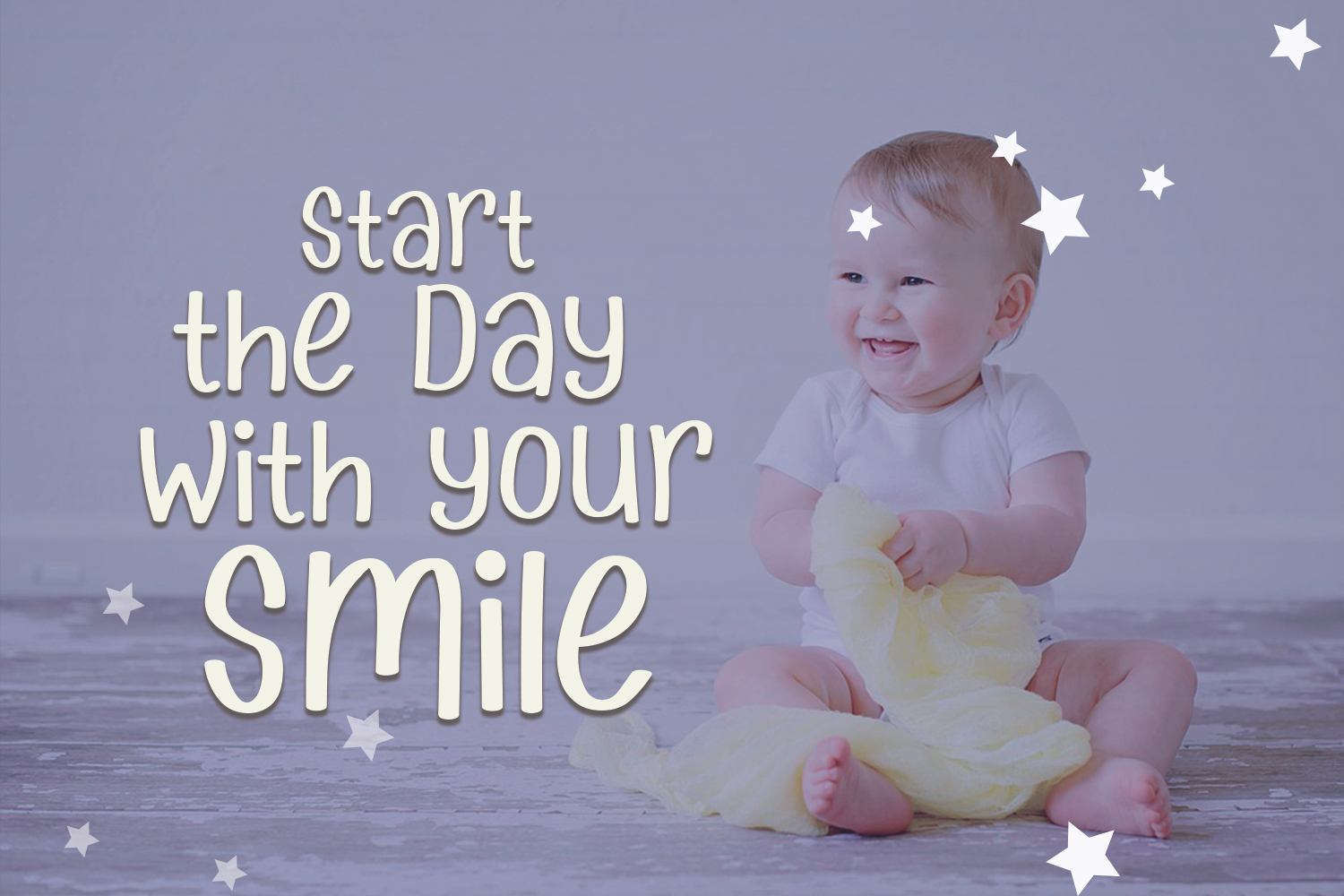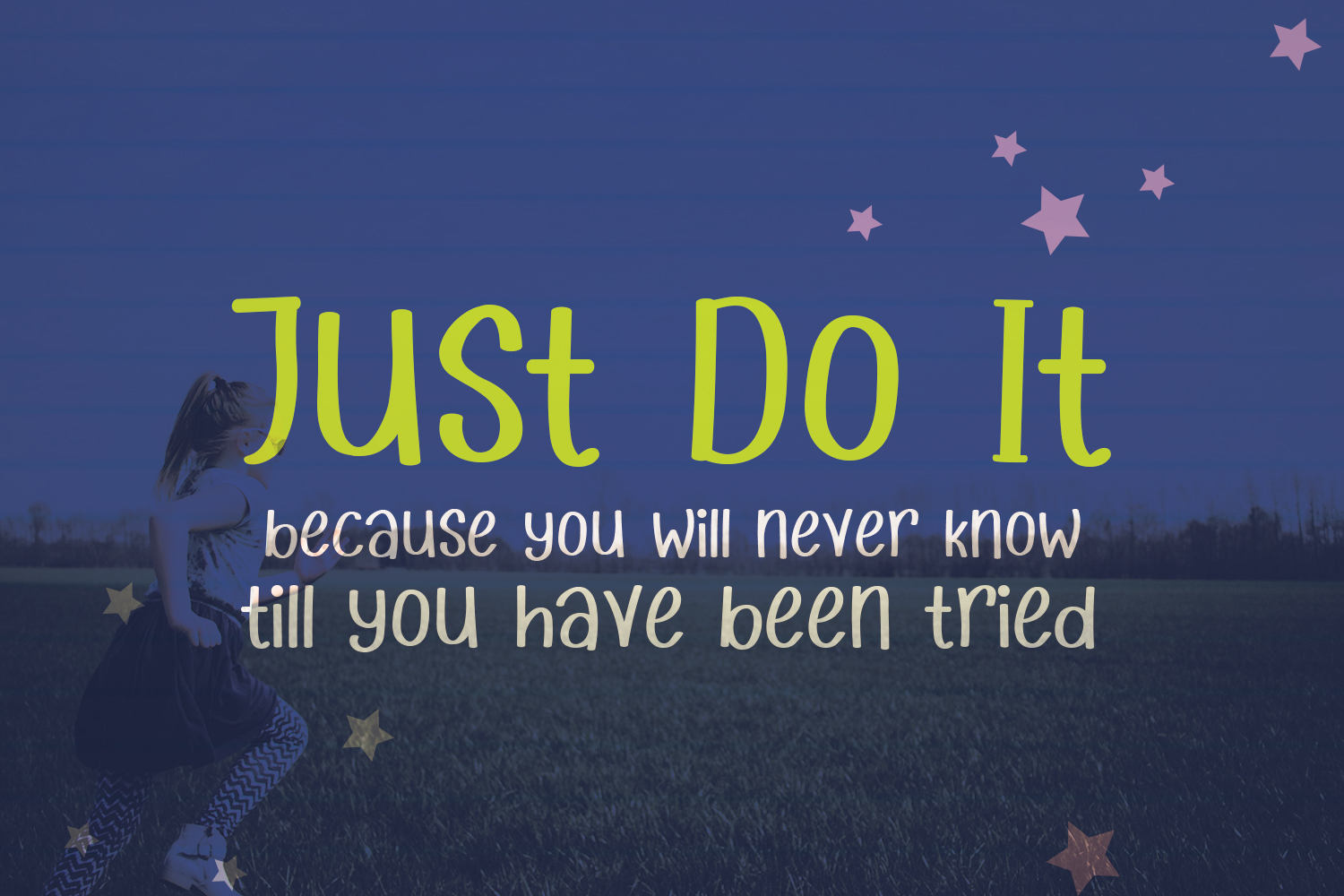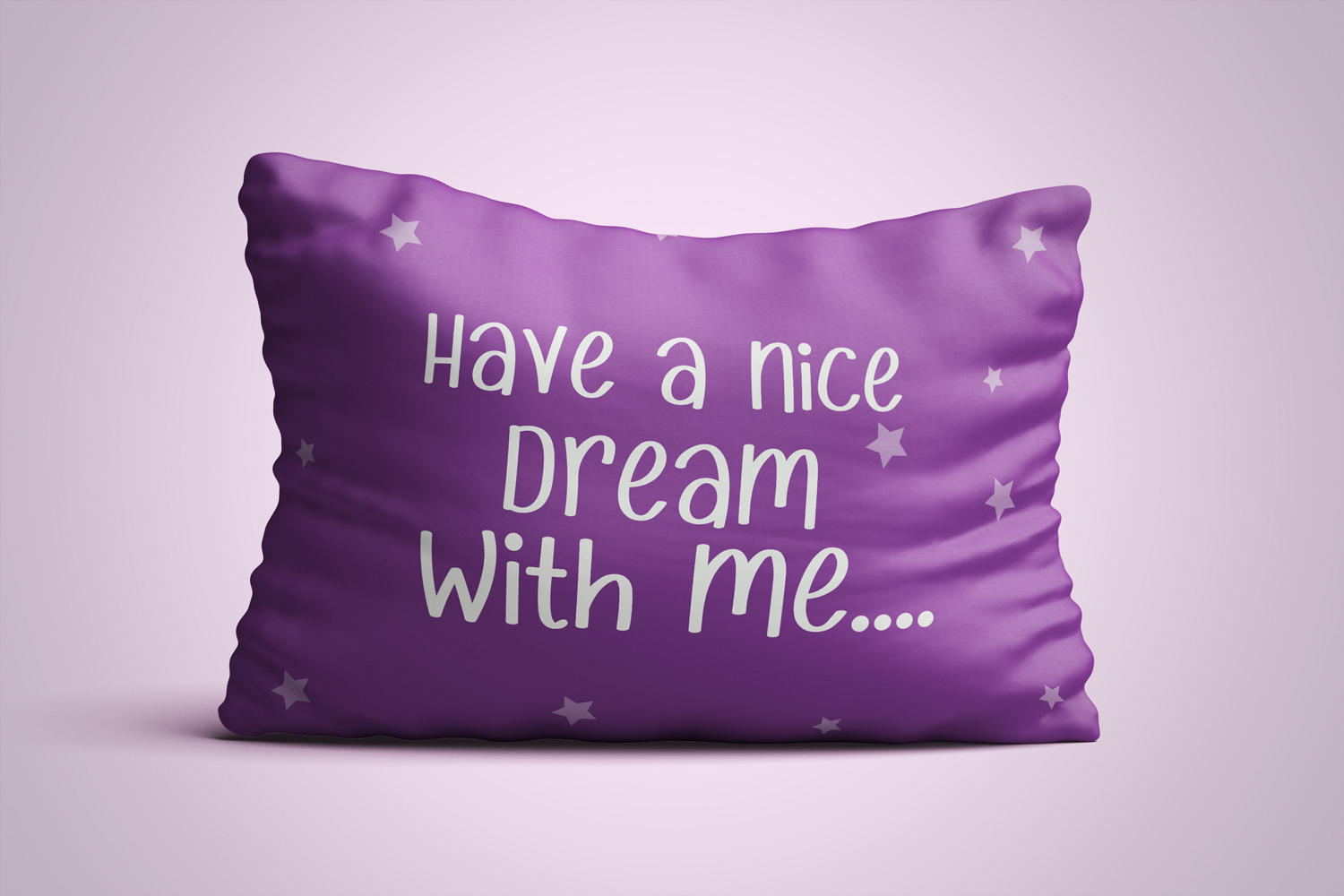
Introduction to Kidstar Font
As designers, we’ve all had those moments when we’re staring at a blank canvas, struggling to find the perfect font to bring our creative project to life. And then, it hits us – a burst of inspiration that sets our imagination soaring. For some, it might be the sound of a kid’s laughter, for others, it’s the sight of a colorful poster in a children’s bookstore. For us, it’s the Kidstar Font – a simple, fun, and cute typeface that adds a youthful energy to any design.
With its playful characters and transparent background, the Kidstar Font is a design resource that’s both high-quality and free to download. Whether you’re working on a branding project or creating a digital graphic, this font is sure to give your design a unique touch. And the best part? It’s free to use, making it an invaluable asset for designers of all levels.
Key Features of Kidstar Font
- High-quality design: Kidstar Font is a beautifully crafted, modern font ideal for creative projects, offering a unique aesthetic that sets it apart from other design resources.
- Transparent background: Kidstar Font features a transparent background, allowing for seamless integration with any design or image.
- Unique characteristics: The font features a playful, childlike feel, making it perfect for children’s projects, educational materials, and other creative endeavors.
Honest Review: Kidstar Font
I recently had the opportunity to work with the Kidstar Font, and I must say it’s been a delightful experience. This font is perfect for any creative project that requires a playful and fun touch. The font’s design is clean, modern, and highly versatile, making it an excellent addition to any design resource.
One of the standout features of the Kidstar Font is its high-quality design. The font’s characters are well-crafted, with smooth lines and a transparent background that makes it easy to use on any design project.
Here are some things that work well with the Kidstar Font:
- ✨ Highly versatile and suitable for a wide range of creative projects
- ✨ Clean and modern design that’s easy to read and use
- ✨ Transparent background makes it easy to use on any design project
However, I did encounter some limitations while using the Kidstar Font:
- ⚠️ Limited character set, which may not be suitable for projects that require a large number of characters
Overall, I’m thoroughly impressed with the Kidstar Font. Its high-quality design, versatility, and ease of use make it an excellent addition to any design resource. While it may have some limitations, I believe the benefits far outweigh the drawbacks.
The Kidstar Font is perfect for creating custom invitations, social media graphics, and marketing materials. It’s also great for adding a touch of personality to your blog or website.